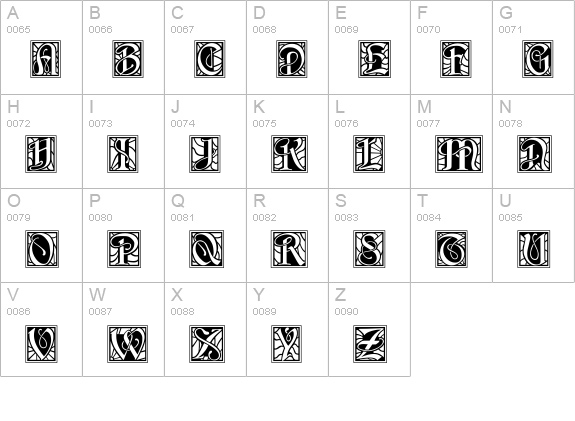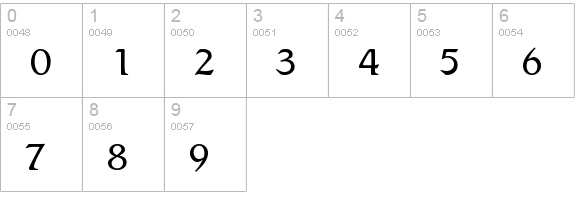
Introducing BD Renaissance font, a stunning display typeface that beautifully captures the essence of classical elegance and sophistication. With its intricate details and timeless charm, BD Renaissance is perfect for adding a touch of luxury to your design projects. This exquisite font features ornate flourishes and delicate serifs that exude a sense of refinement and grace. What's even better is that BD Renaissance font is available for free download at FontsMarket.com, making it easily accessible for designers and creatives looking to elevate their work with a touch of vintage flair. Whether you're working on invitations, branding, or editorial design, this font is sure to make a lasting impression with its regal appearance and exquisite craftsmanship. Download BD Renaissance font today and infuse your projects with a touch of old-world charm and sophistication.